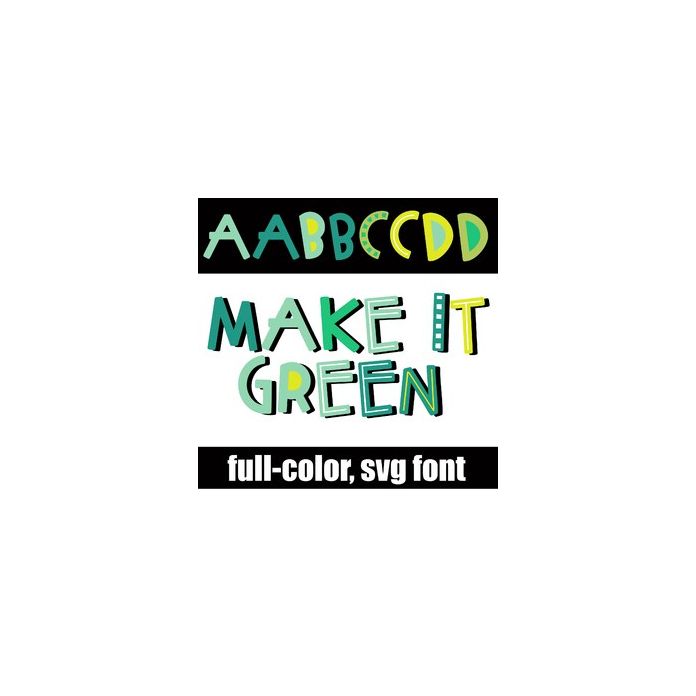
This full-color font features green lettering in a whimsical font. Alt upper and lowercases are available through your system's character map. This font works best for titles, displays, posters and more. Please note color fonts will show as black in non compatible programs. This font type is compatible with Silhouette Studio.